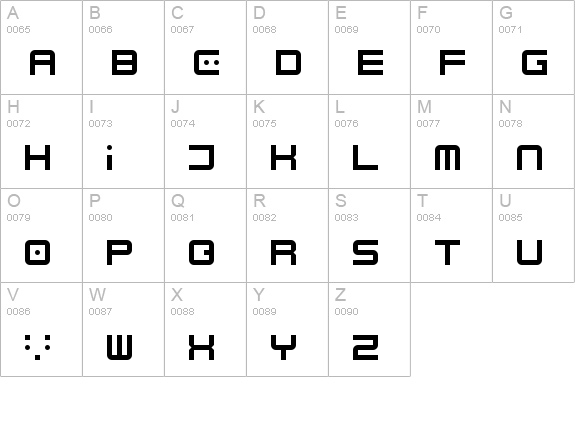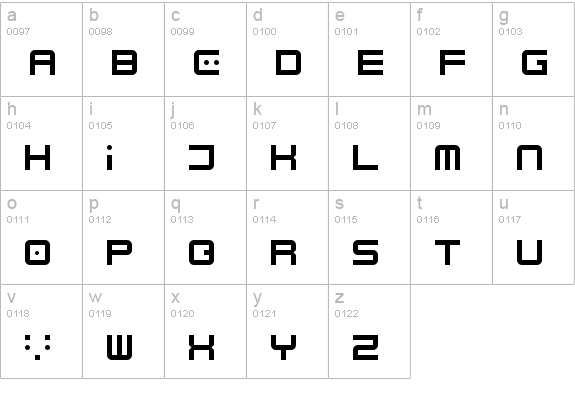
Electrobyte Font Details
Electrobyte is a free for personal use font in the General > Sans-Serif category, designed by Darrell Flood. It has been downloaded 125 times and is available for Windows, Mac and Linux.
Electrobyte font is a modern and stylish typeface that is perfect for adding a futuristic touch to your designs. Its sleek and geometric design makes it ideal for tech-related projects, branding, and digital artwork. The sharp edges and clean lines of Electrobyte give it a contemporary and edgy look that will make your text stand out.